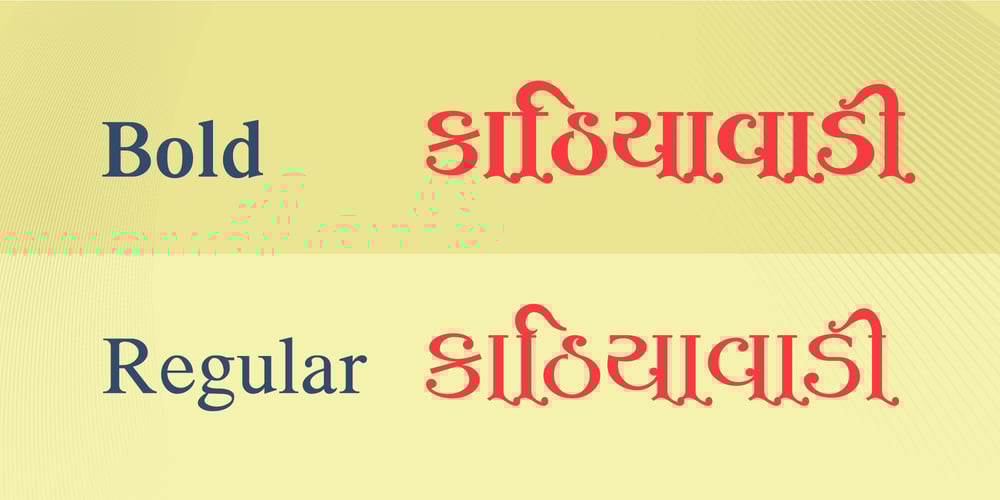
Shree Gujarati 0773 Font Family was designed by Modular Infotech and published by Modular InfoTech. Shree Gujarati 0773 contains 4 styles and family package options. ShreeGuj0773 is a Gujarati Artistic Text font widely used in Magazines and Invitation cards. In India, it is predominantly used by advertising agencies. This font family offers two weights: Regular and Bold. This font is also widely used to create wedding cards, Banners, and Hoardings.